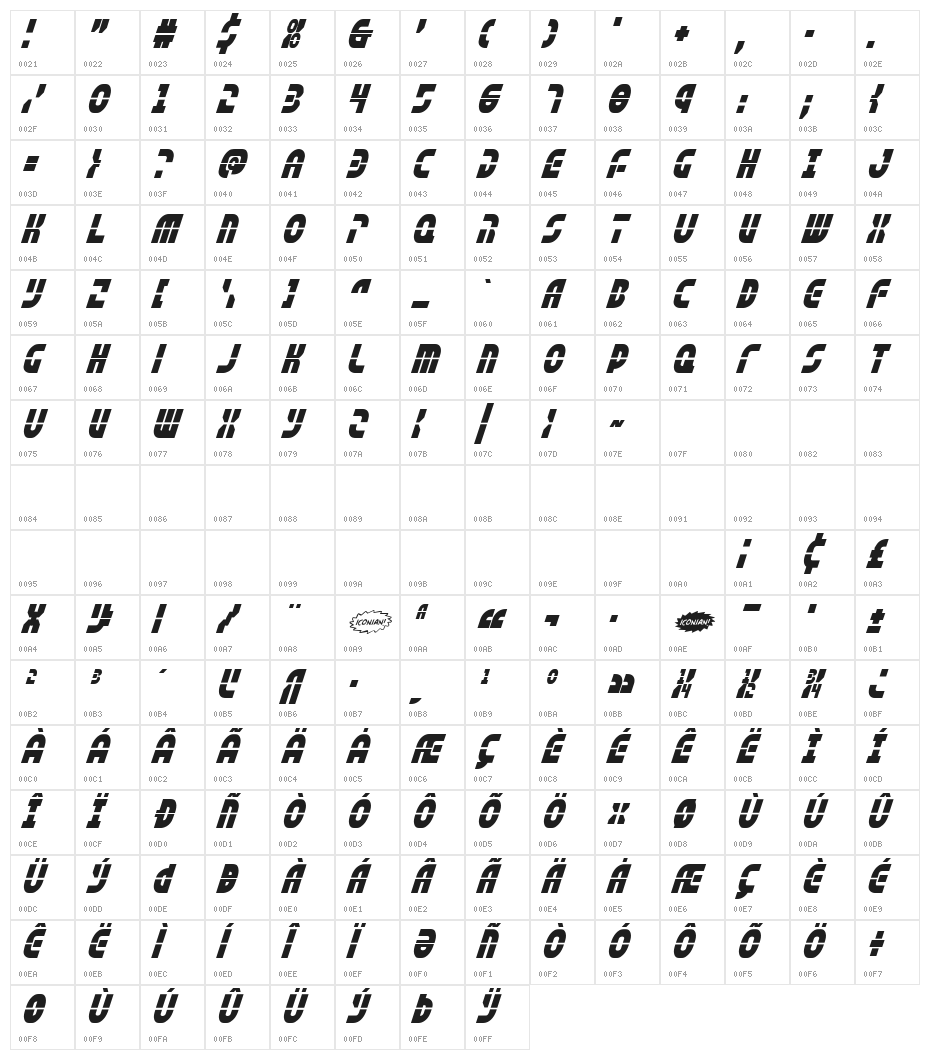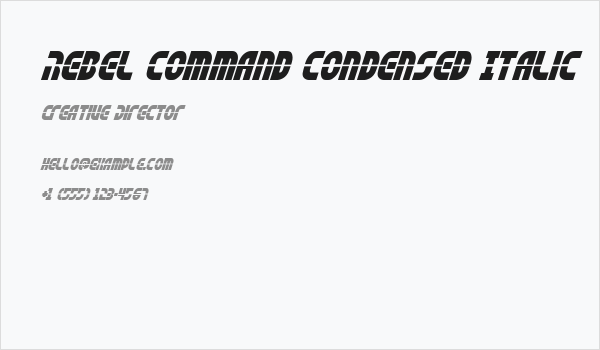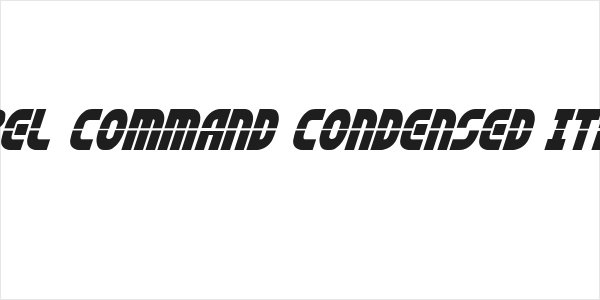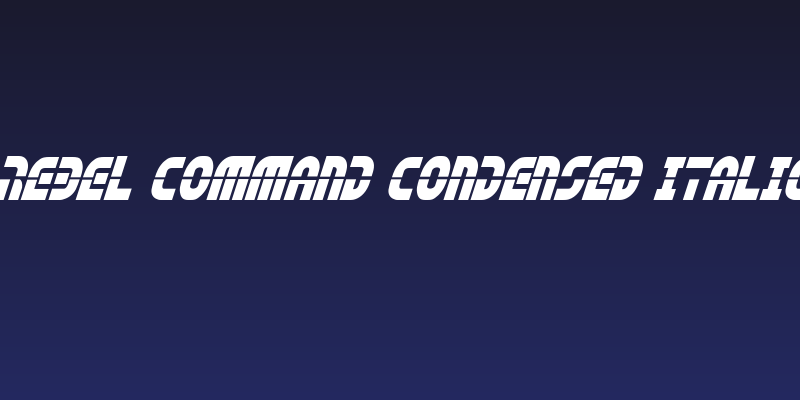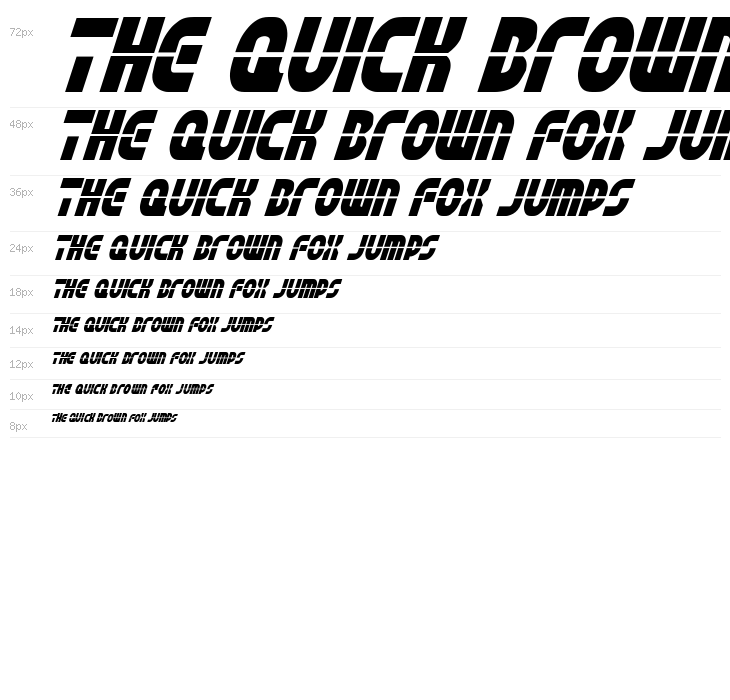
Rebel Command Condensed Italic Font
Rebel Command Condensed Italic Description
This font features a bold, condensed style with a distinct italic slant, giving it a dynamic and energetic appearance. The characters are tightly spaced, enhancing the compactness of the design. The strokes are thick and consistent, providing a strong visual impact. The font's geometric shapes and sharp angles contribute to its modern and futuristic look, making it suitable for projects that require a bold statement. The uppercase and lowercase letters maintain a uniform style, while the numbers and special characters are designed to match the overall aesthetic.
| Proposed Projects | Ideal for branding, sports team logos, posters, and any project needing a strong, modern typeface. |